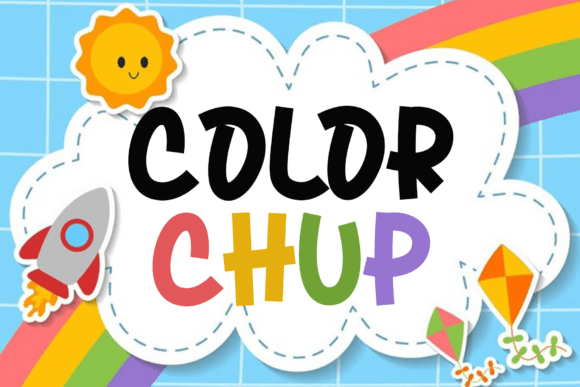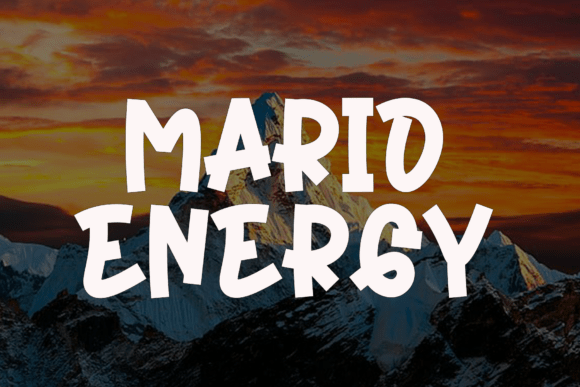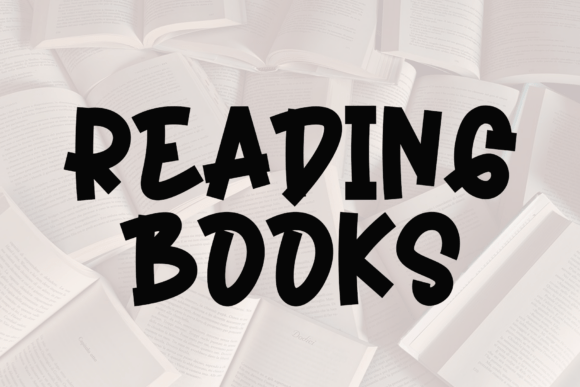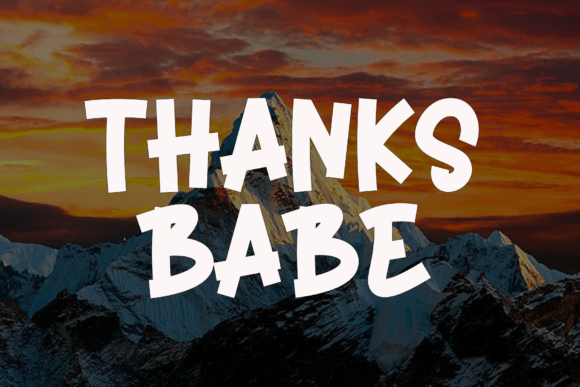
The Boomber Font: A Bold and Energetic Typeface for Creative Projects
I’ll never forget the time I was working on a poster design project for a local music festival. I had a clear vision of a bold, eye-catching headline that would grab the attention of passersby, but I was struggling to find the right font. That’s when I stumbled upon the Boomber font, and it instantly clicked. Its dynamic, comic-style lettering seemed to jump off the page, perfectly capturing the energetic vibe of the festival.
An Honest Review of Boomber Font
What I Love About Boomber Font
• ✨ Bold and energetic style: Boomber font is perfect for making a statement with your designs. Its bold, edgy lettering demands attention and adds a touch of playfulness to any project.
• ✅ Versatile: Whether you’re designing a poster, headline, or logo, Boomber font adapts seamlessly to different contexts and styles.
• 🎉 Fun and youthful: This font is ideal for designs targeting a younger audience or for projects that require a bit of whimsy and personality.
While Boomber font is an excellent choice for many projects, there are a few things to keep in mind:
• 🤔 Legibility at small sizes: Due to its bold and edgy nature, Boomber font can become less legible at very small sizes. It’s best used for headlines or titles rather than body text.
• ⚠️ Limited serif options: As a bold, sans-serif font, Boomber may not be the best choice for projects that require a more traditional or formal look.
The Backstory of Boomber Font
The Boomber font was designed by a team of creatives who wanted to create a bold, energetic typeface that would capture the spirit of youth culture. Inspired by comic books, graffiti, and street art, Boomber font is the perfect blend of playfulness and edginess. Whether you’re a designer, artist, or simply a creative hobbyist, Boomber font is sure to add a touch of personality to your projects.
Q: What type of projects is Boomber font best suited for?
A: Boomber font is ideal for posters, headlines, youth-oriented designs, and playful branding.